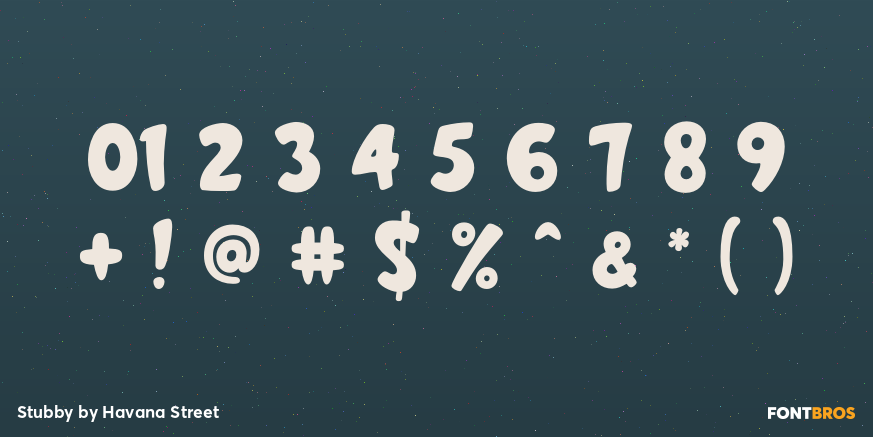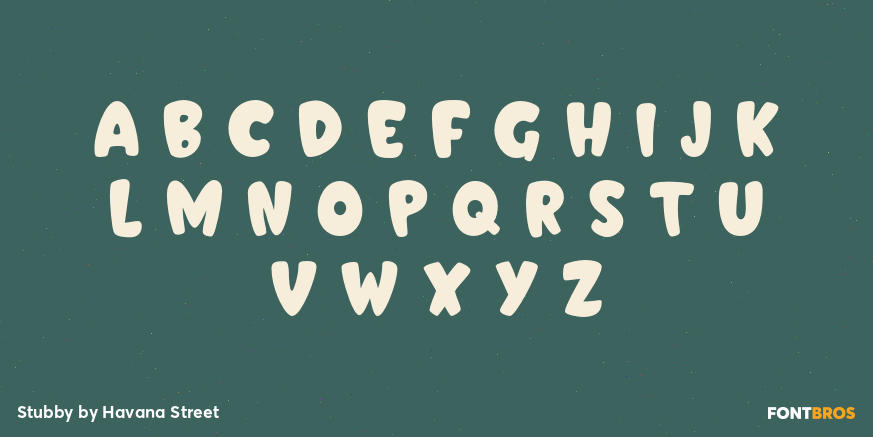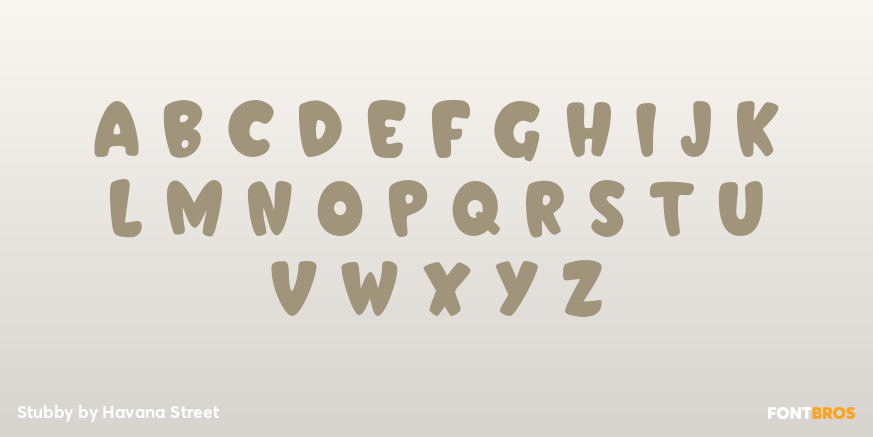
Stubby
Font Family by Havana Street
Stubby is the happy round sibling of Toon! This plump cheerful fellow is always ready for a fine BBQ.
Previously available only from the hand of the artist, Havana Street has brought original 1940s style Hollywood hand-lettered, movie poster-type to your keyboard. Now you too can adorn your creations with these wonderfully gaudy fonts.